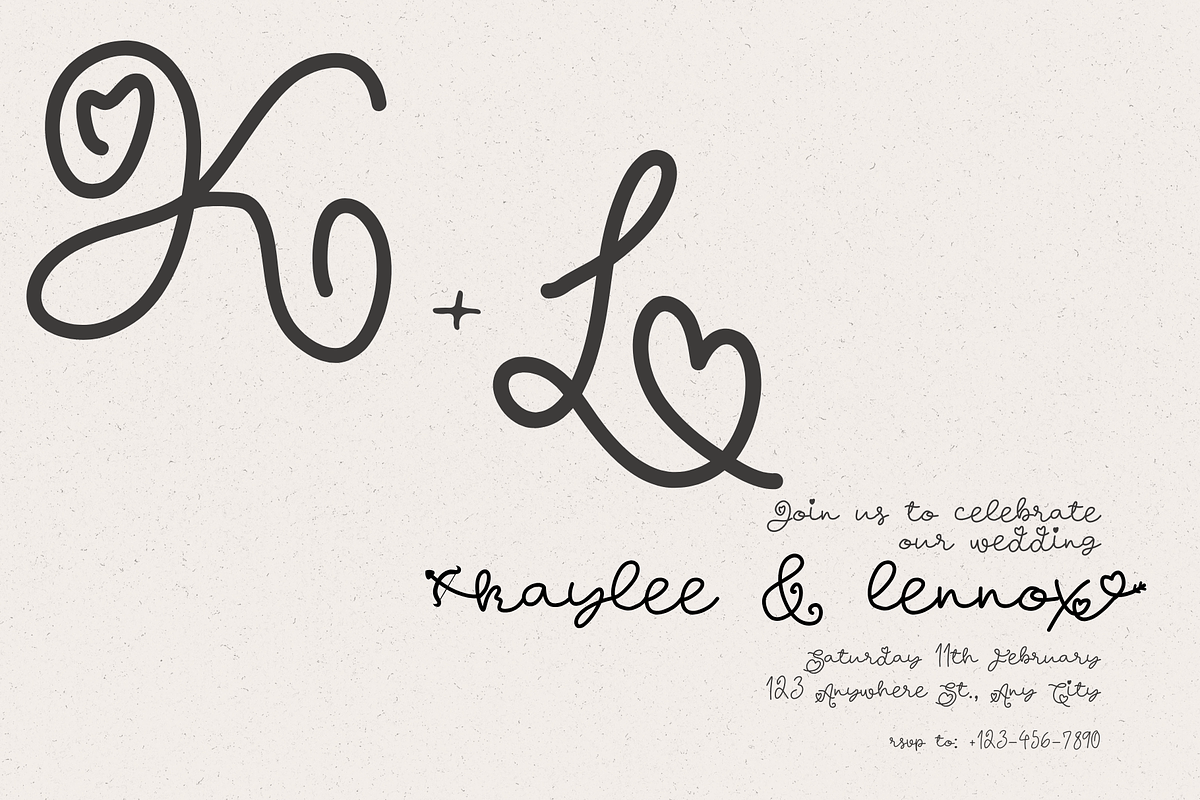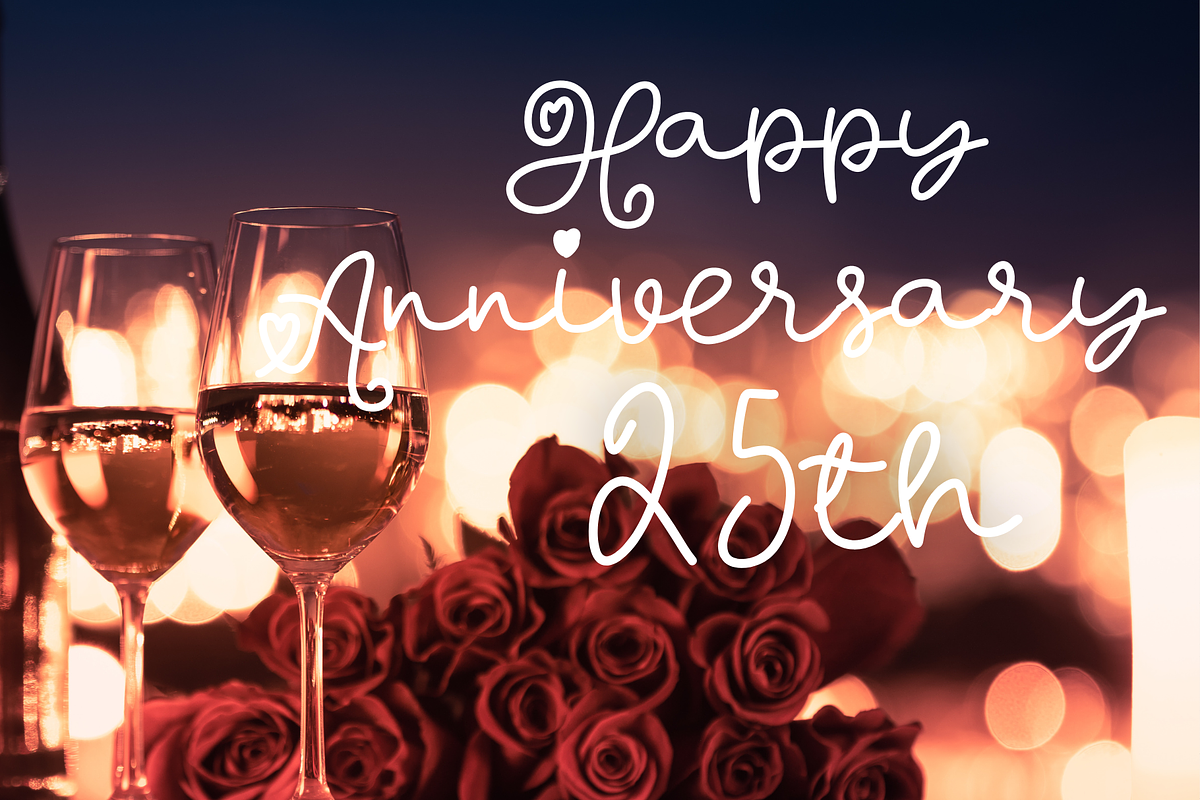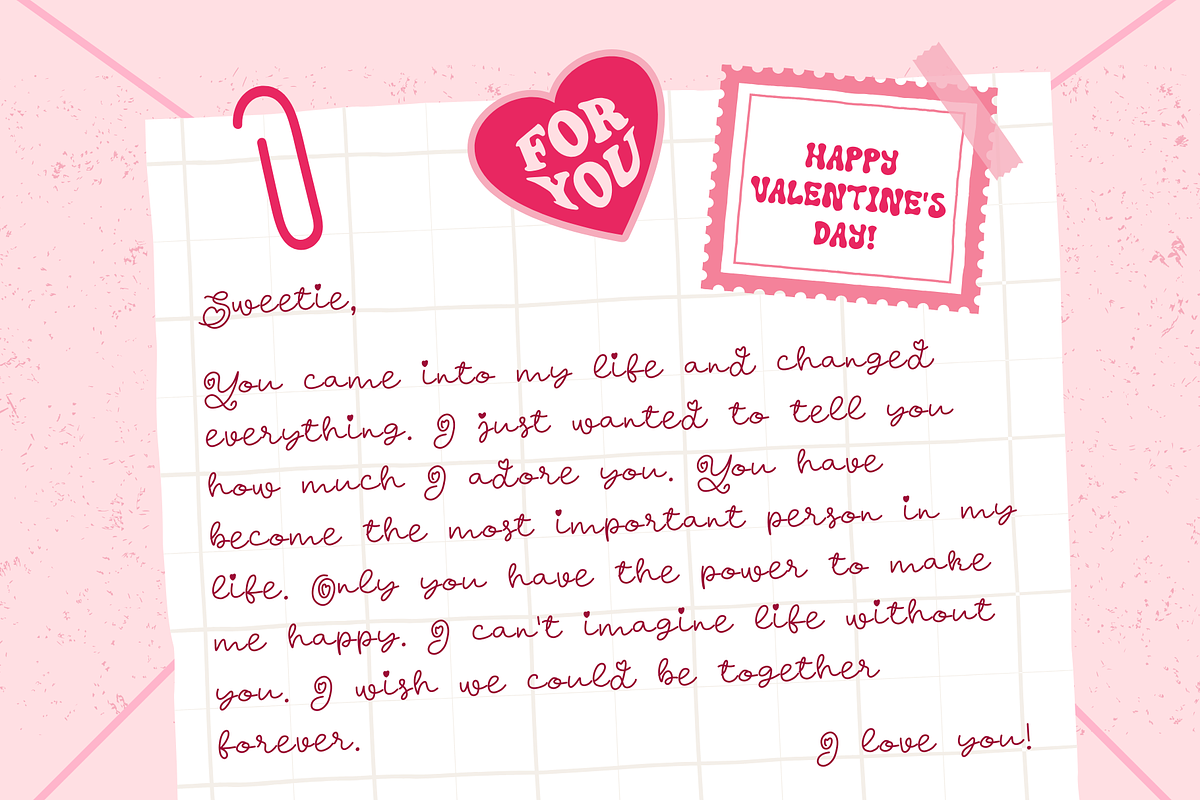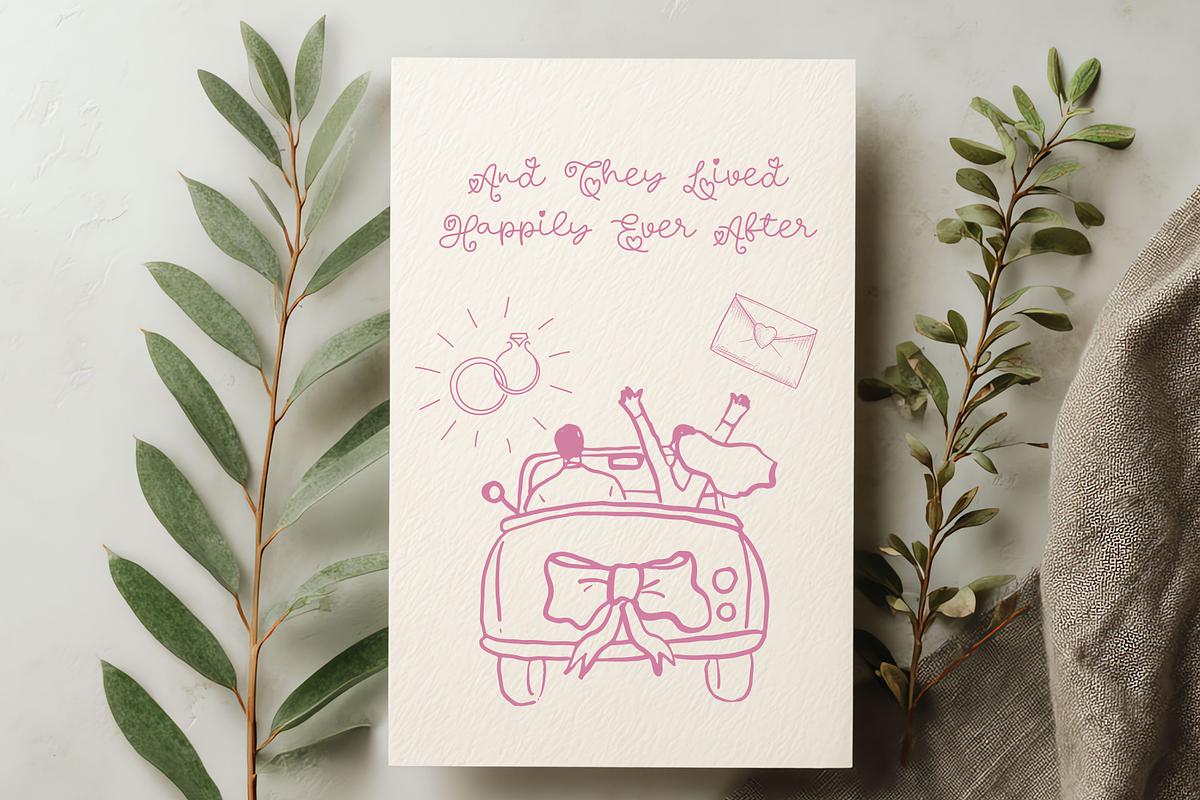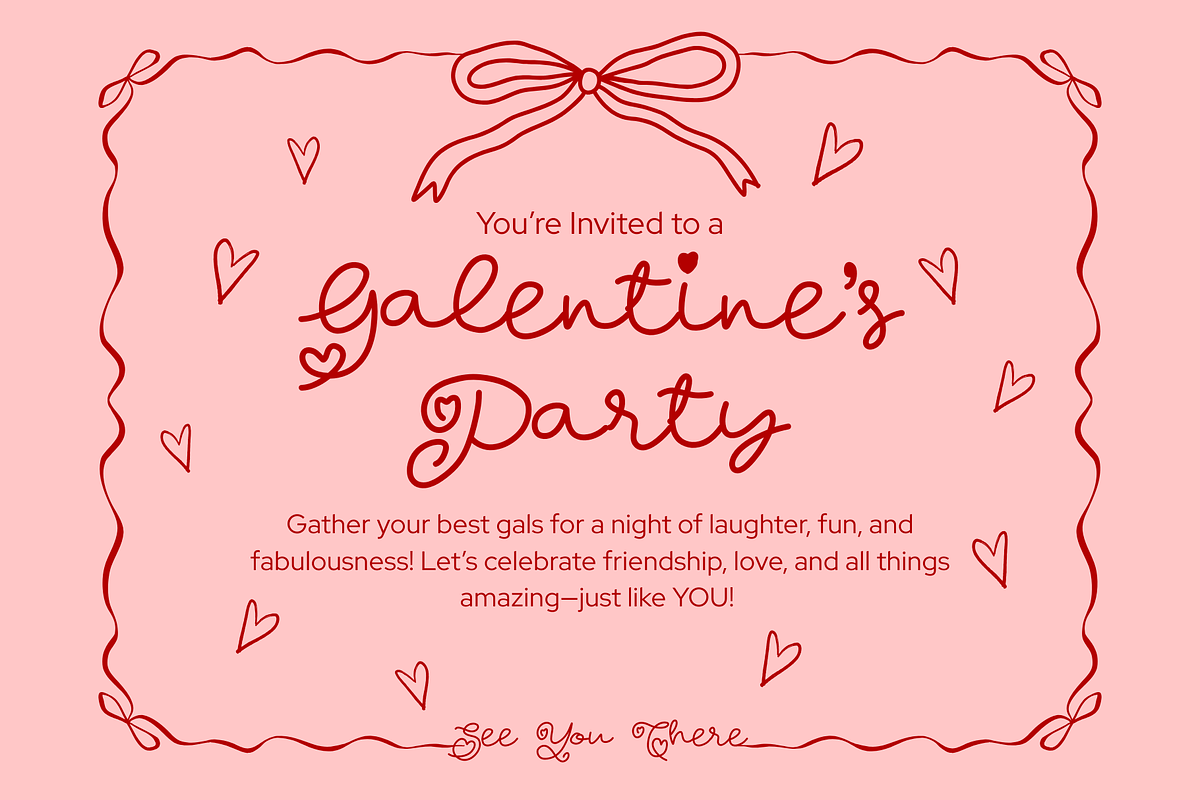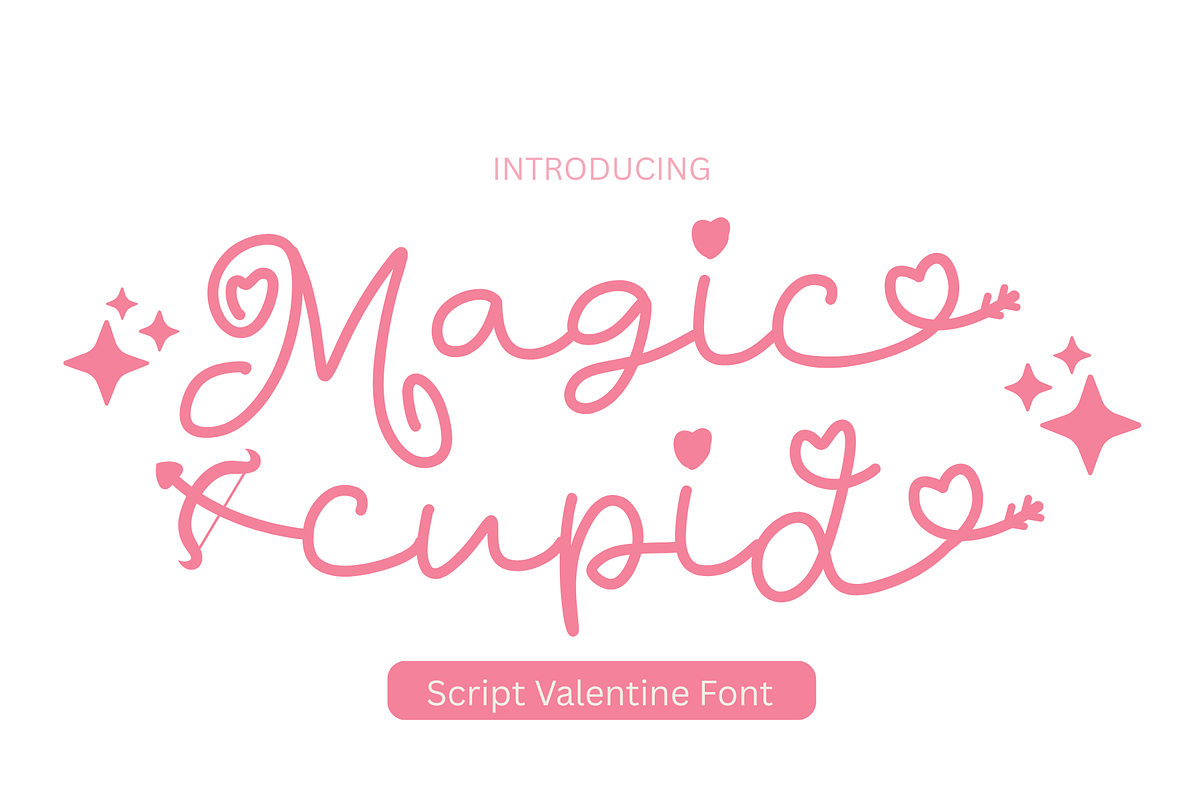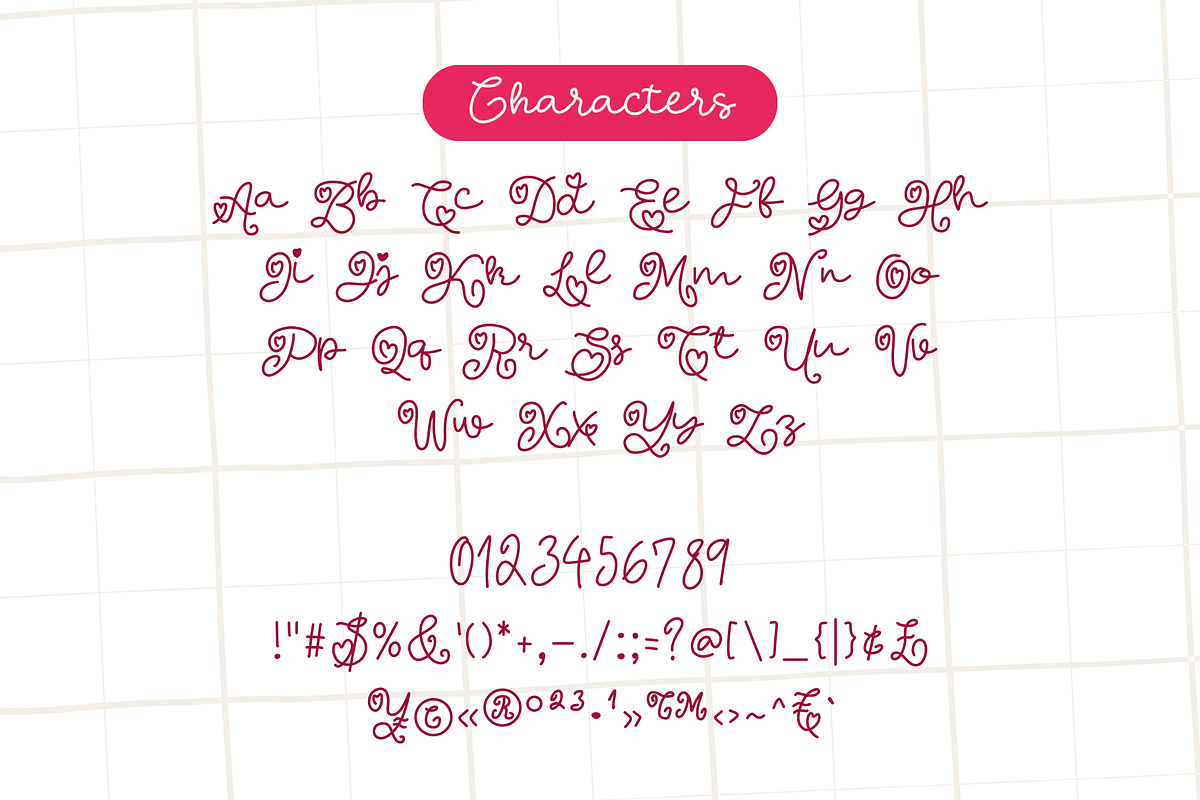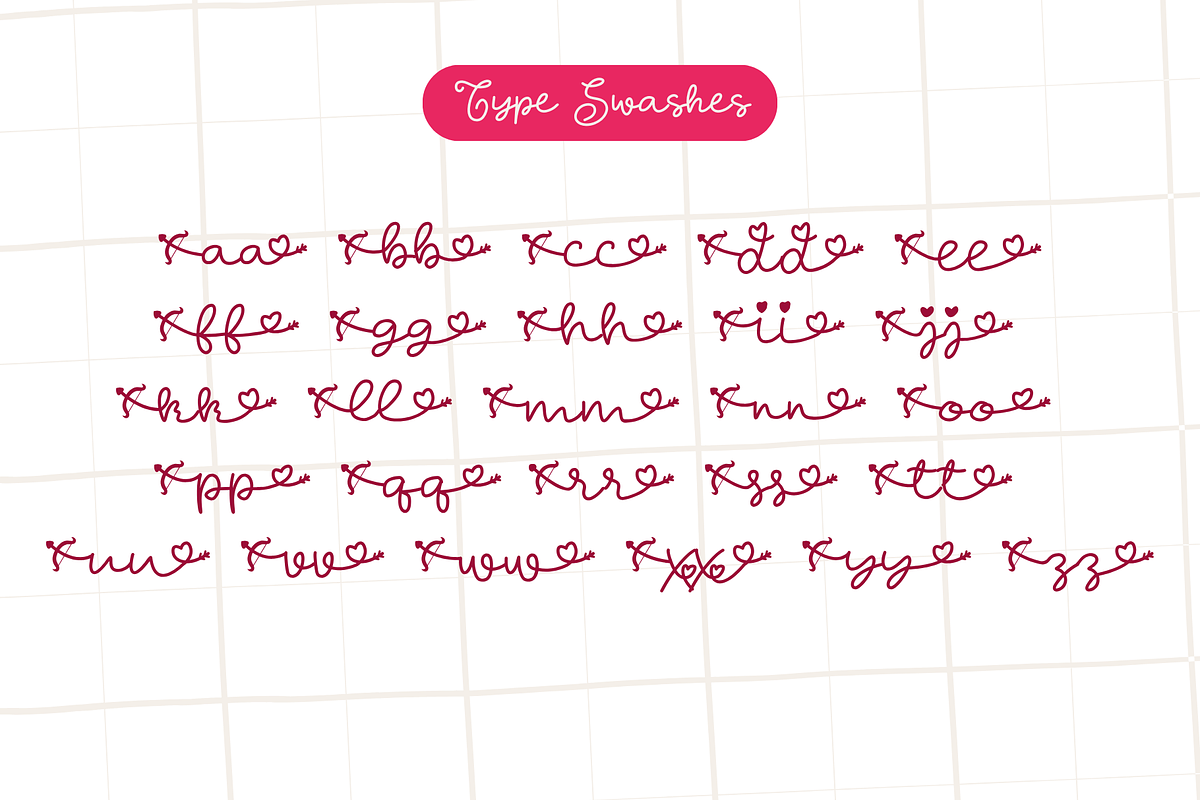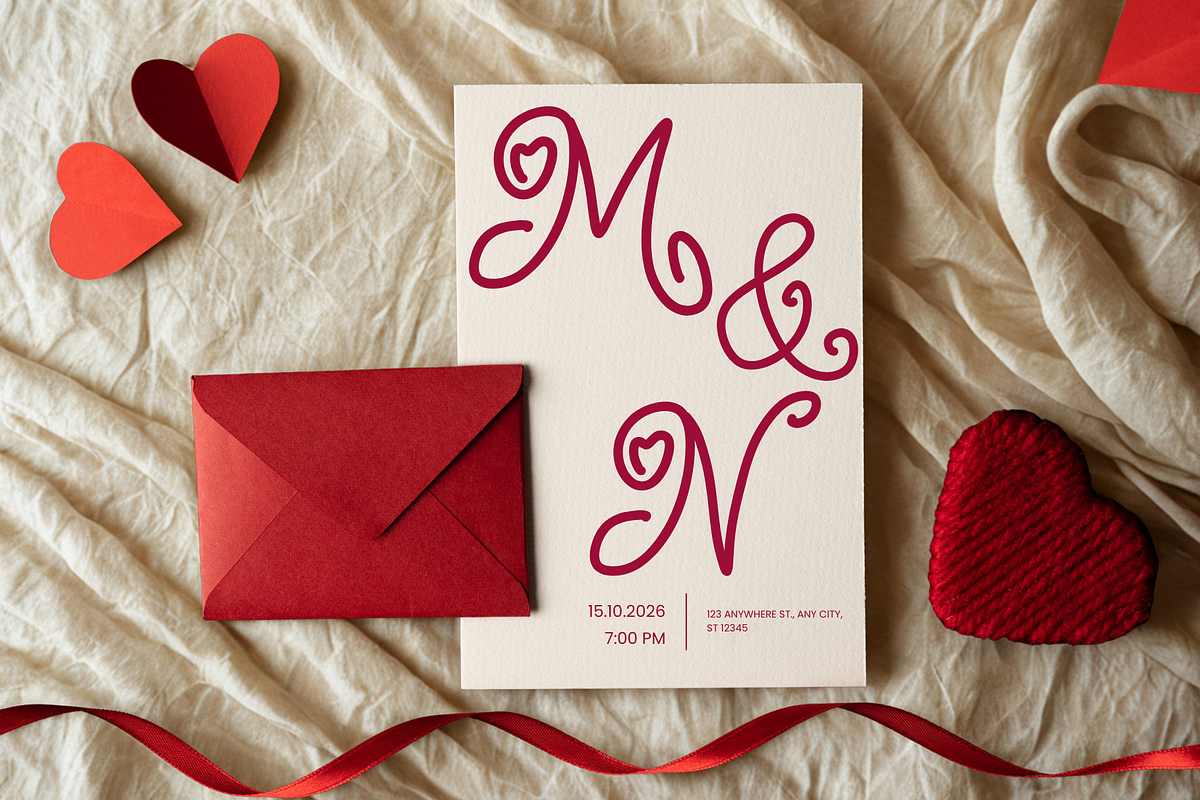
Magic Cupid is a Script font
Magic Cupid is a Valentine’s Day Script font. It embodies playfulness and authenticity and is the perfect choice for all your favorite projects, or even for blog posts, logos, branding, ads, invitations, greeting cards, planners, photo albums, decorations, and much more. Add it to any of your designs, and enjoy the results!